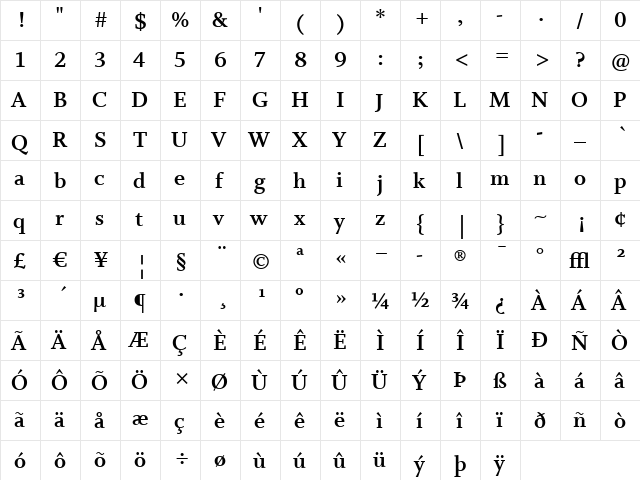
Whitman-BoldLF Regular
| Foundry | The Font Bureau, Inc |
| Designer | Kent Lew |
Design Context for Whitman-BoldLF Typeface
Whitman-BoldLF offers clean, dependable letterforms without strong stylistic allegiance, making it a practical choice for designers who need flexibility. Its bold stroke weight gives it real presence on the page.